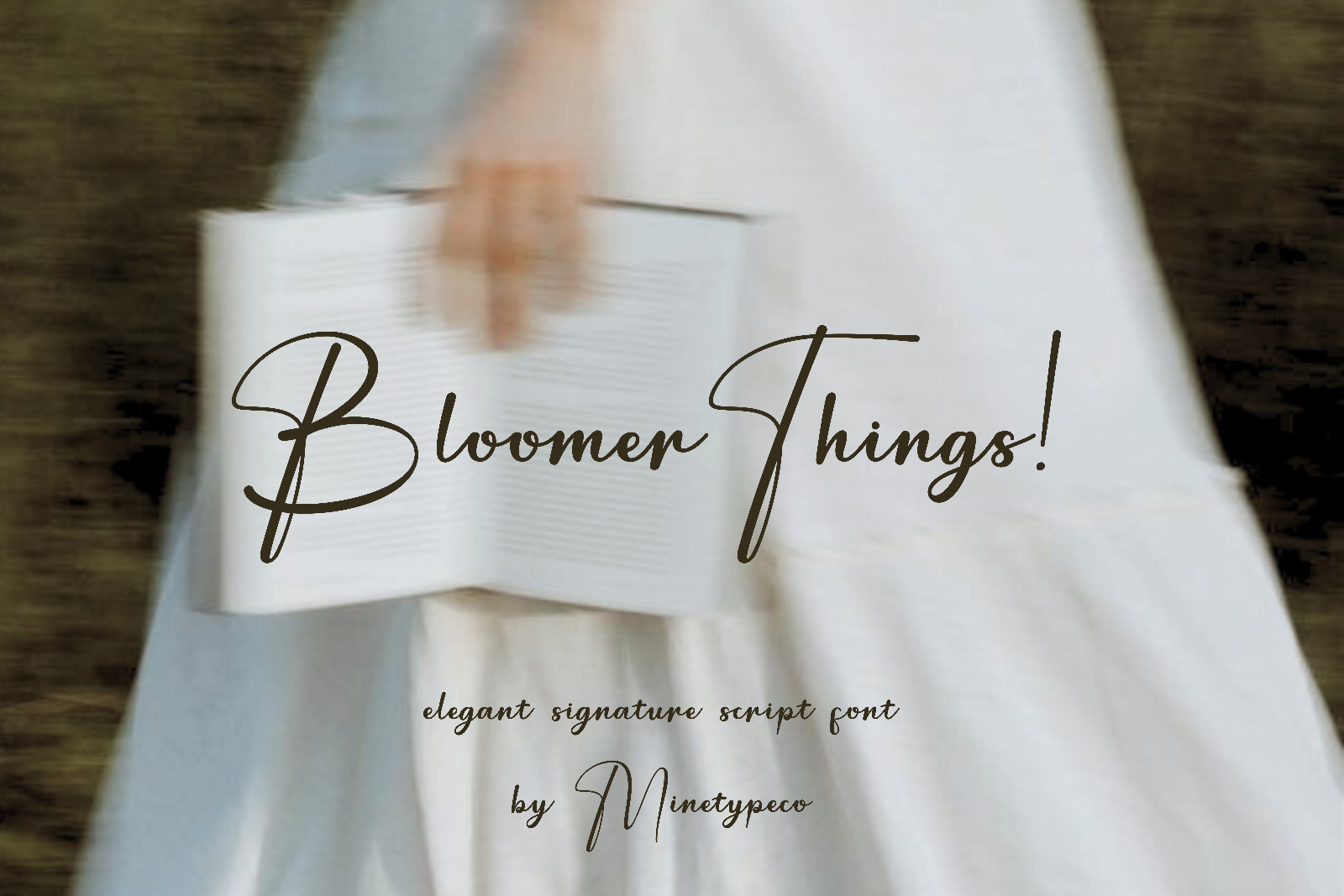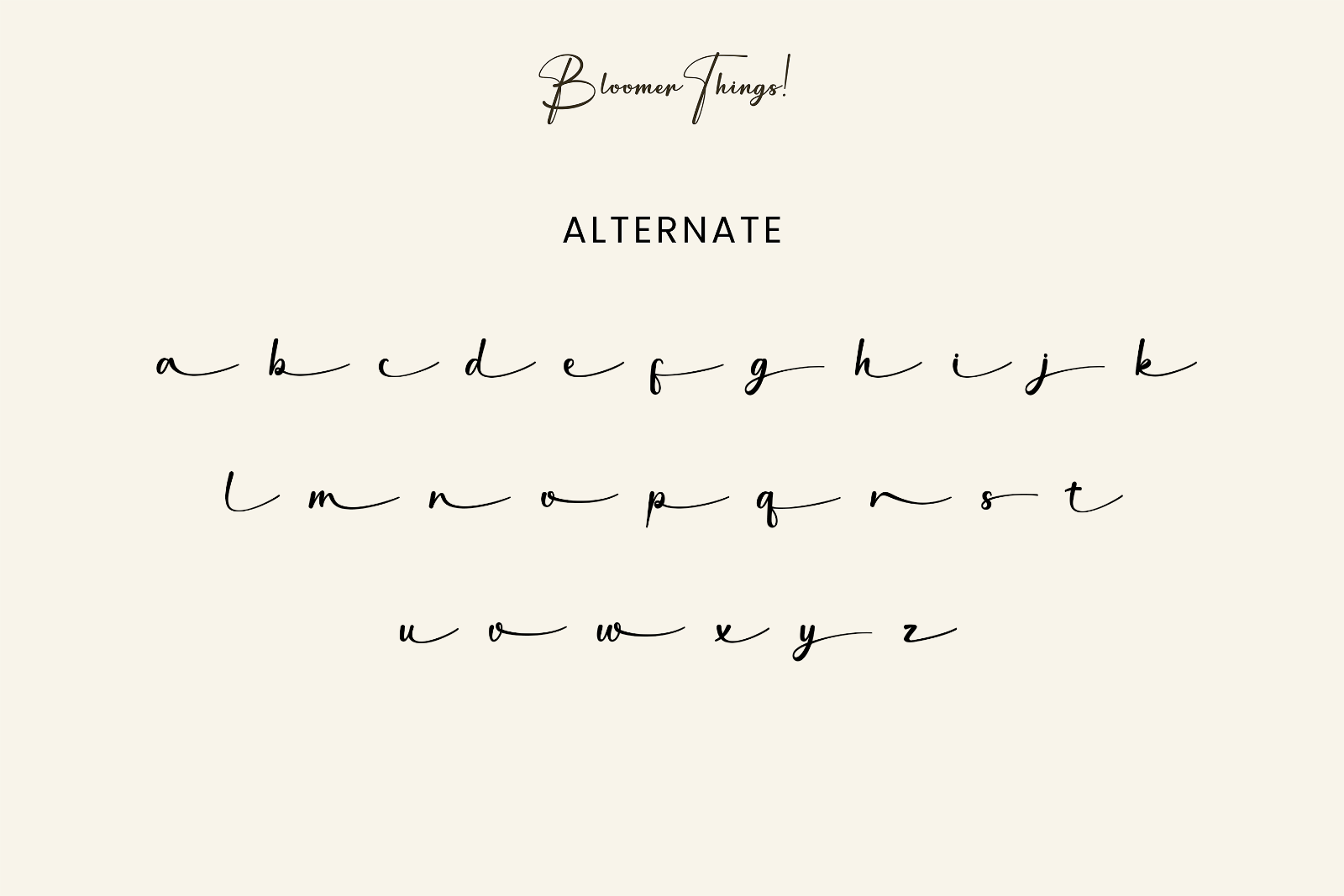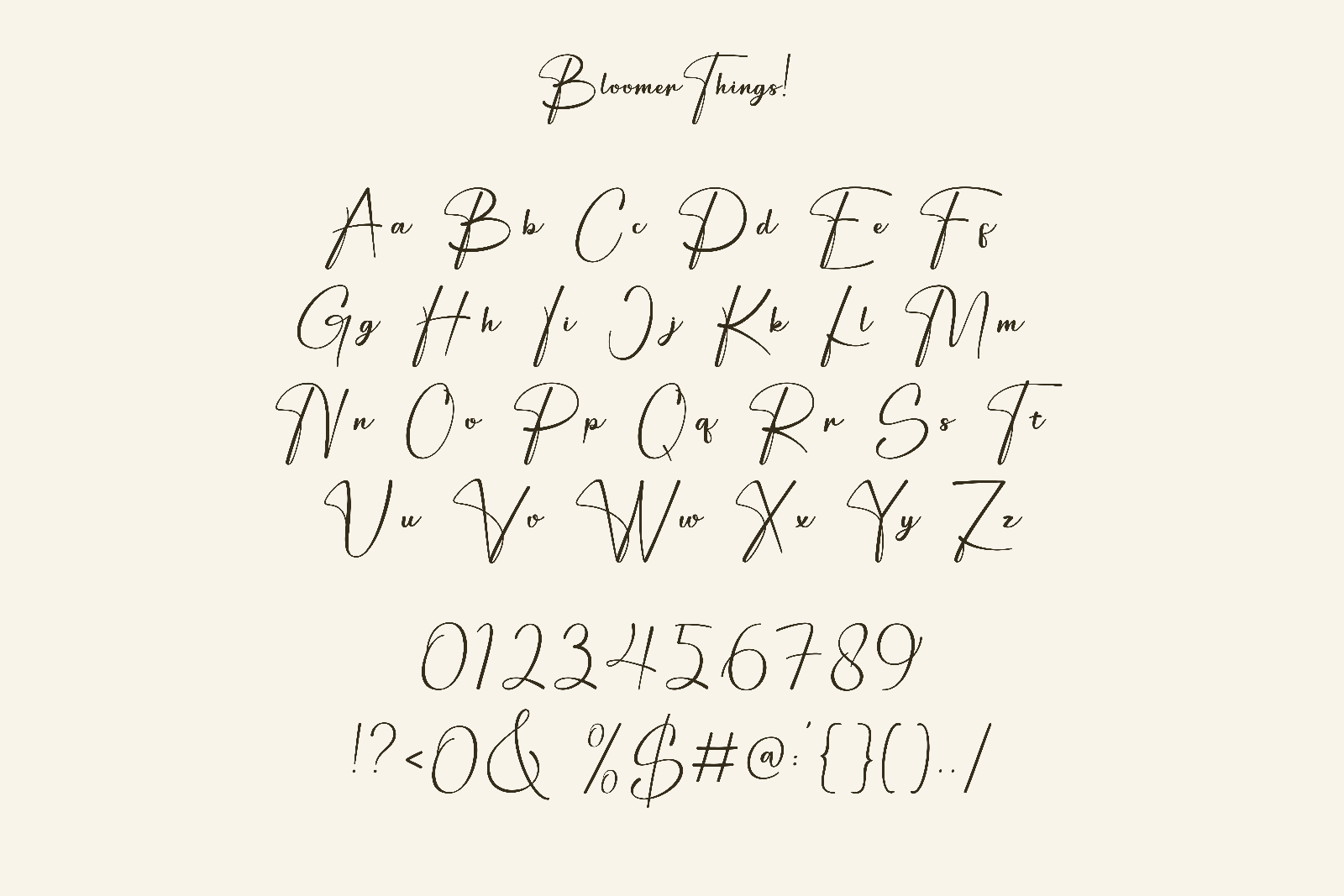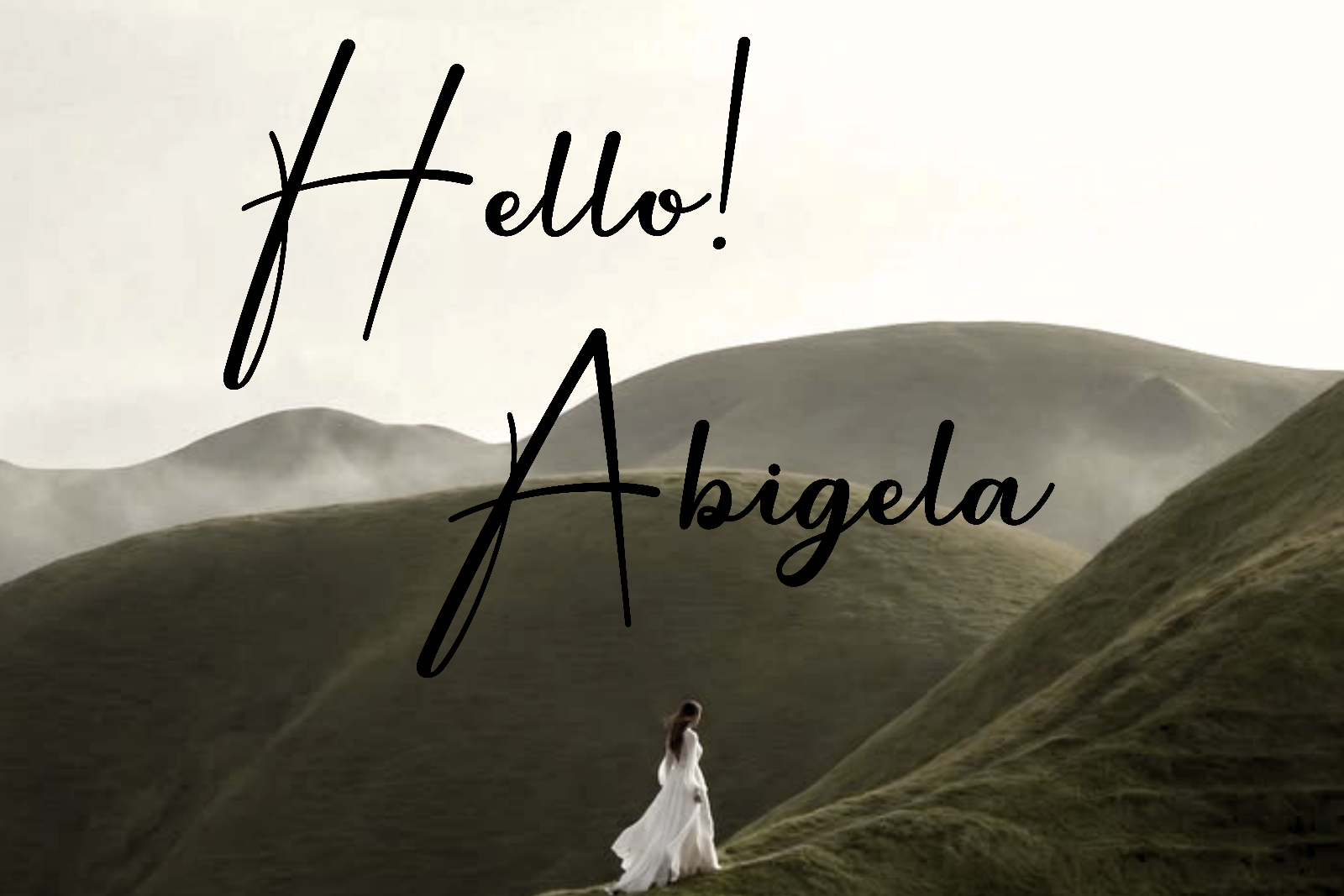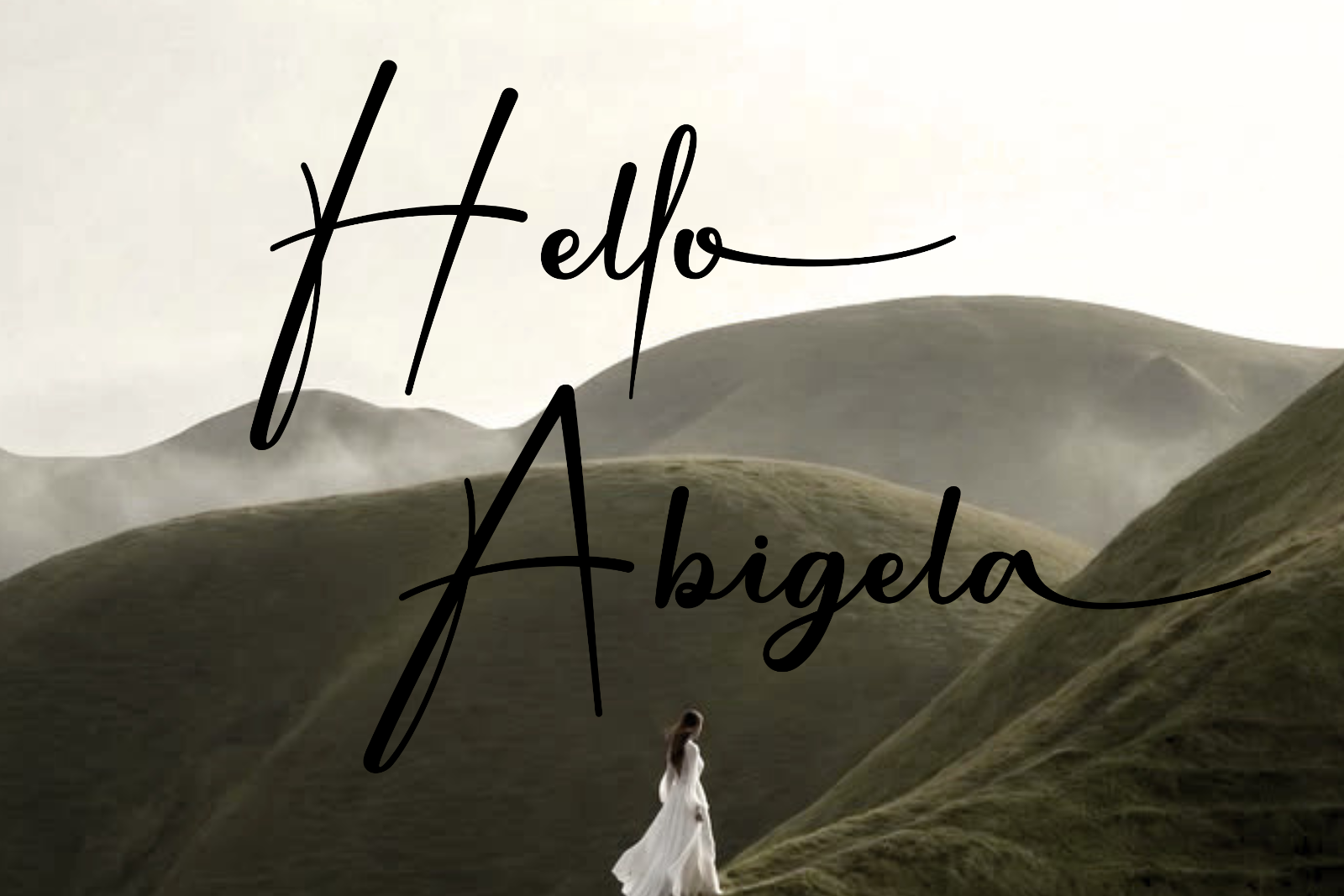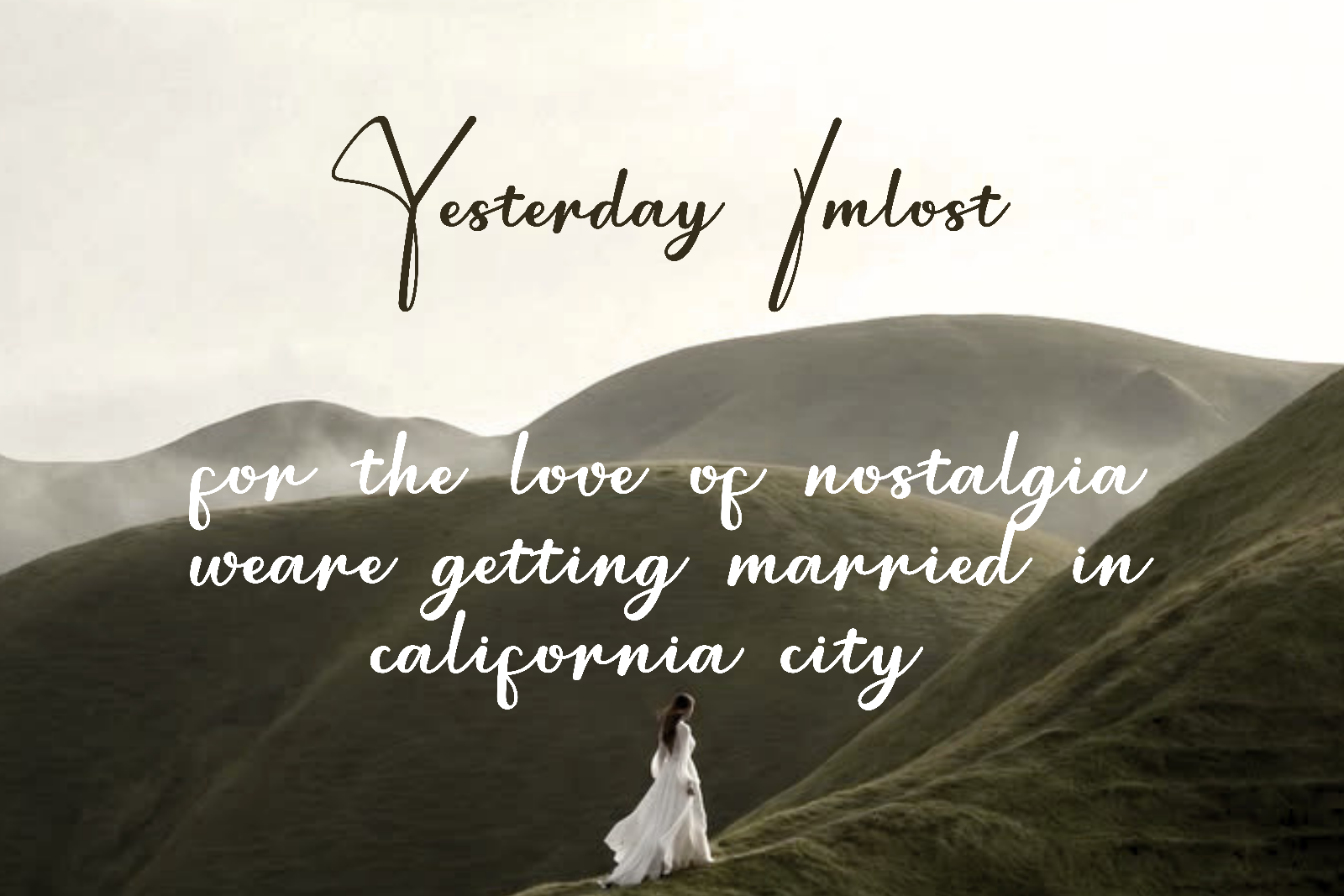
Bloomer Things is an elegant script font inspired by graceful handwriting and timeless beauty. Featuring delicate curves and stylish letterforms, it brings a sophisticated and feminine touch to branding, invitations, logos, and creative designs.
• Logo & branding projects
• Wedding invitations
• Editorial layouts
• Packaging design
• Book covers
• Fashion & beauty branding
• Quotes and signature-style typography
• Uppercase & lowercase characters
• Alternate Font